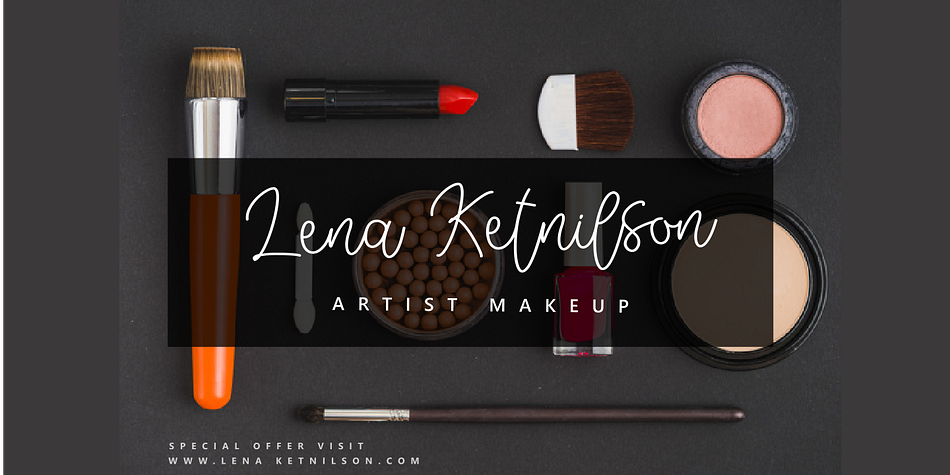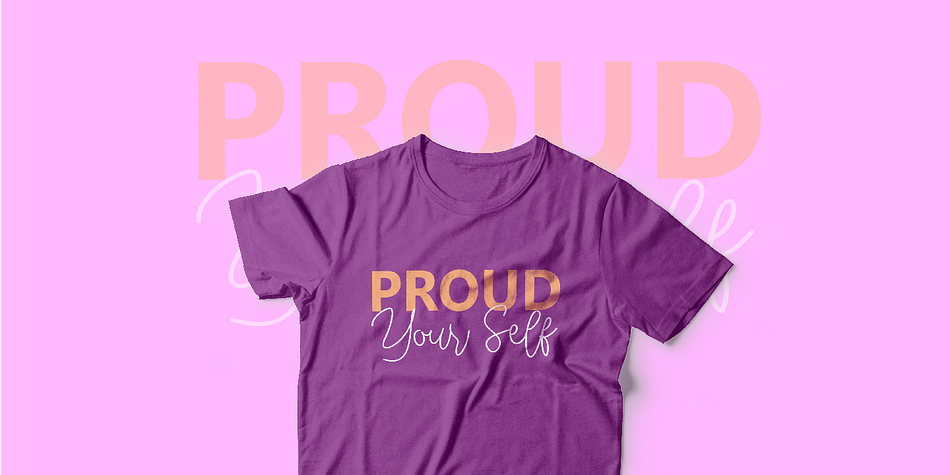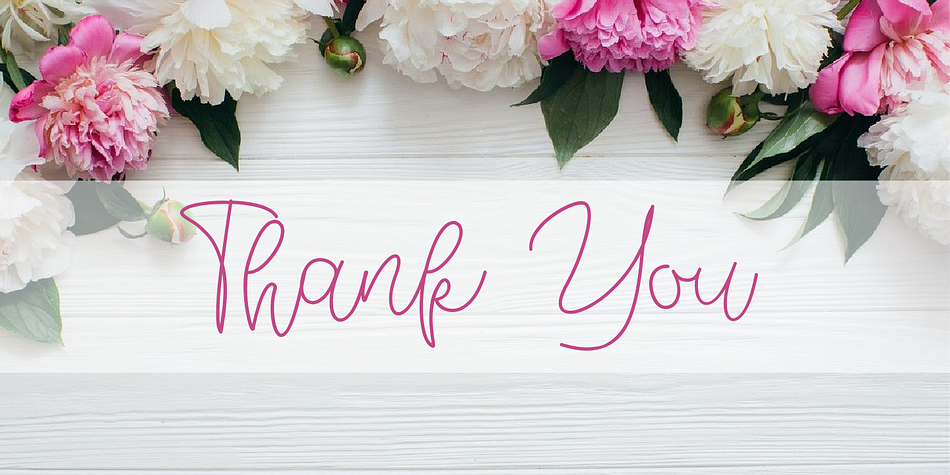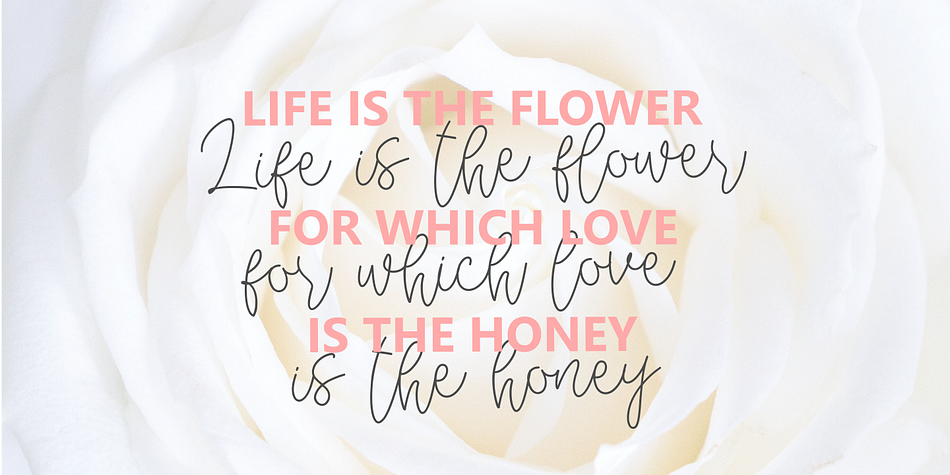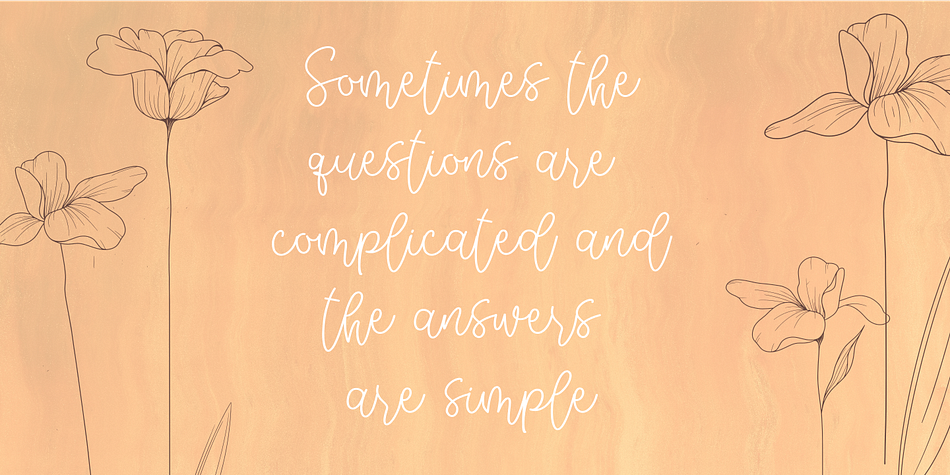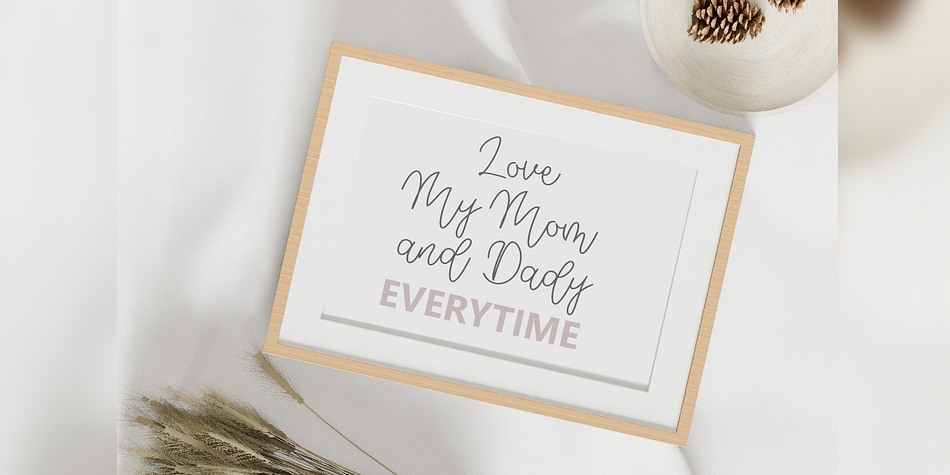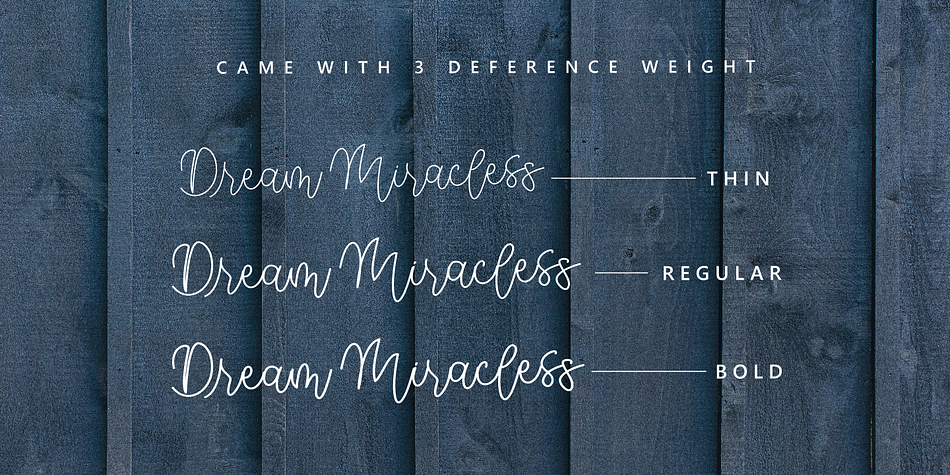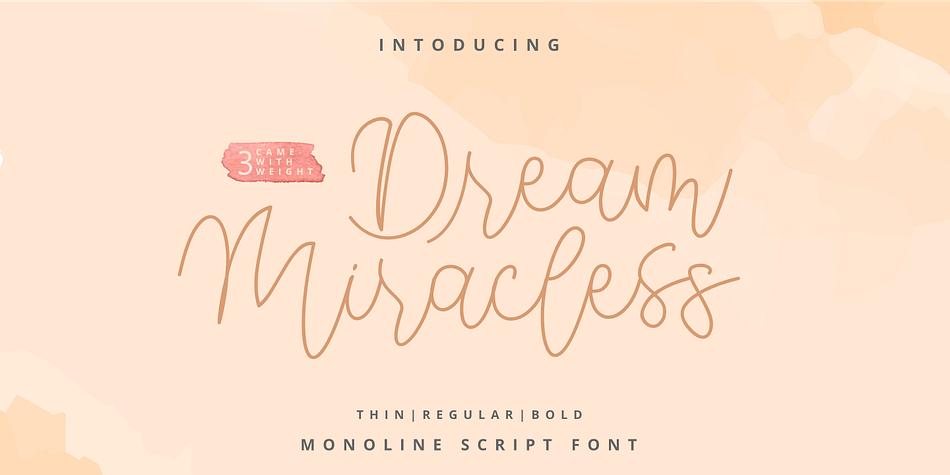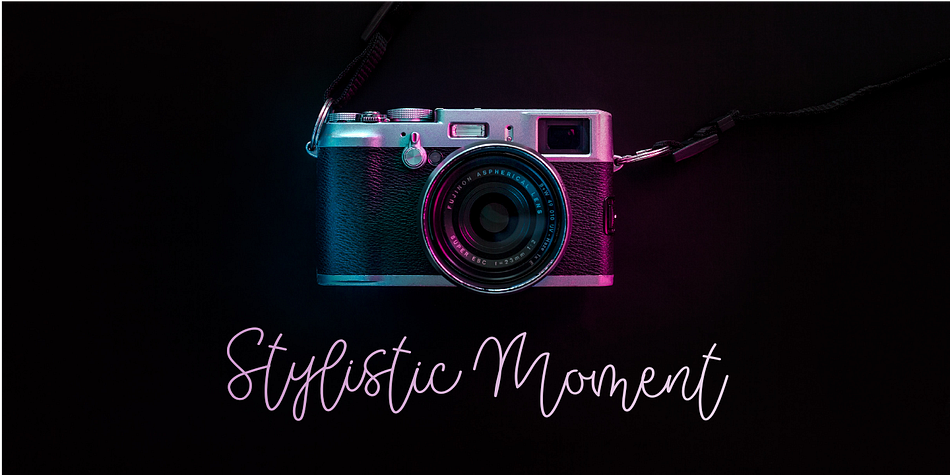
Dream Miracless
Dream Miracless is a hand display font family. This typeface has three styles and was published by Zeenesia Studio.
Dream Miracless is a lovely, thin and delicate script font. Featuring characters that dance along the baseline, this font will add a luxury spark to any design project that you wish to create!